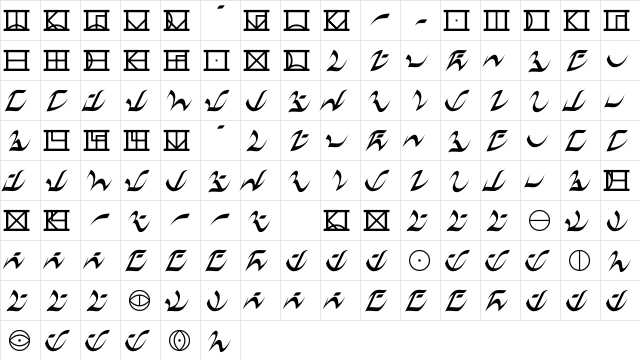
D'ni Script LM Regular
| Foundry | Sebastian Ochs (Jehon) |
| Designer | All things D'ni ere created by Cyan Inc. |
Design Context for D'ni Script LM Typeface
D'ni Script LM brings a calligraphic fluidity to the page — its connecting strokes and expressive curves give it an unmistakably human quality.